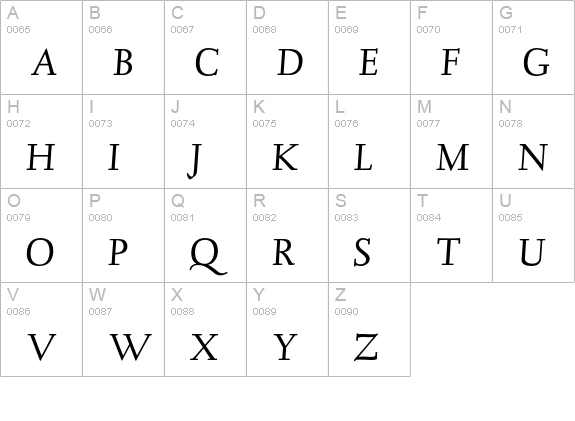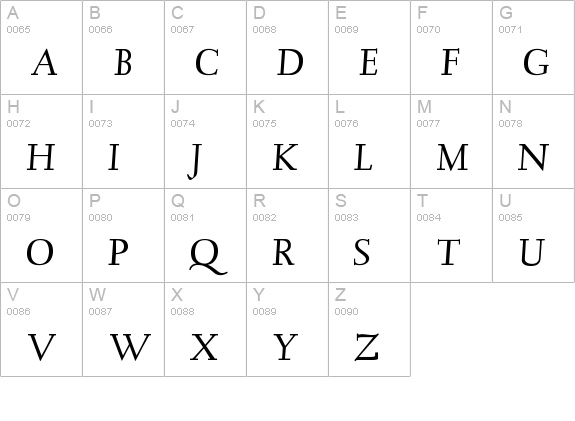
KaatskillH-Italic is a distinctive, italic variant in the KaatskillH typeface family \xE2\x80\x94 well suited to design and typography projects.
Introducing KaatskillH-Italic, an exquisite font that combines elegance and sophistication in its design. With its sleek and slender letterforms, this font exudes a sense of grace and style, making it the perfect choice for projects that require a touch of class. The KaatskillH-Italic font features beautifully crafted italicized letterforms that add a distinct flair to any text. Each character is meticulously designed, with smooth curves and delicate details that bring a sense of fluidity to the overall aesthetic. This font is not only visually stunning but also highly versatile. From invitations and greeting cards to branding materials and editorial designs, KaatskillH-Italic can effortlessly elevate any project, giving it a refined and polished look. What sets KaatskillH-Italic apart from other fonts is its availability as a free download. Yes, you read that right – this incredible font is freely accessible at FontsMarket.com. Now, you can enhance your creative endeavors without any financial constraints, making it an ideal choice for both personal and commercial projects. So why wait? Download KaatskillH-Italic today and experience the beauty and versatility of this captivating font. Whether you're a seasoned designer or a beginner, this font is sure to become your go-to choice for adding a touch of elegance to your typography.